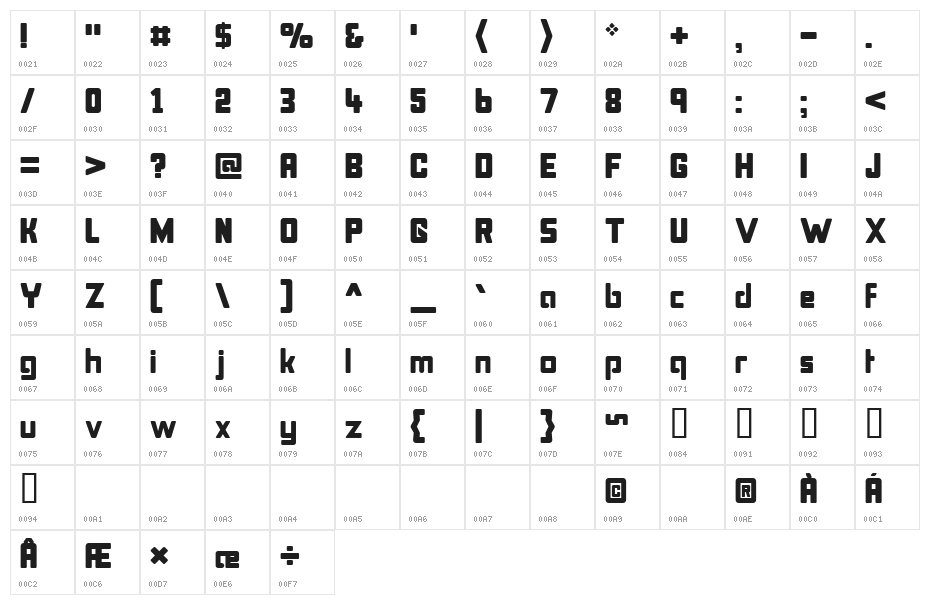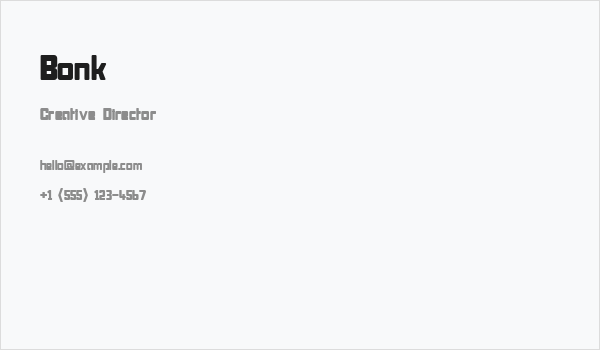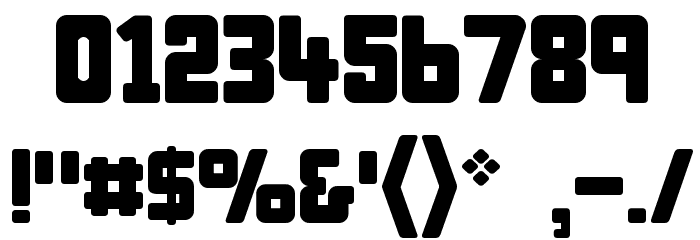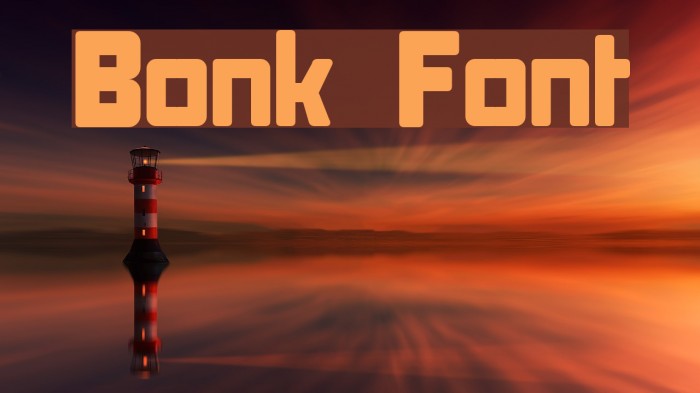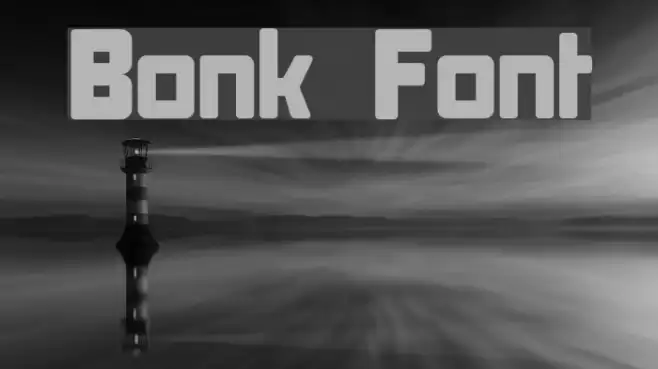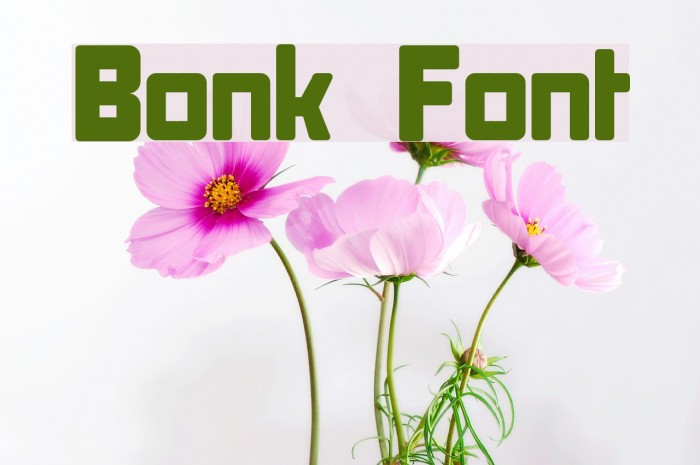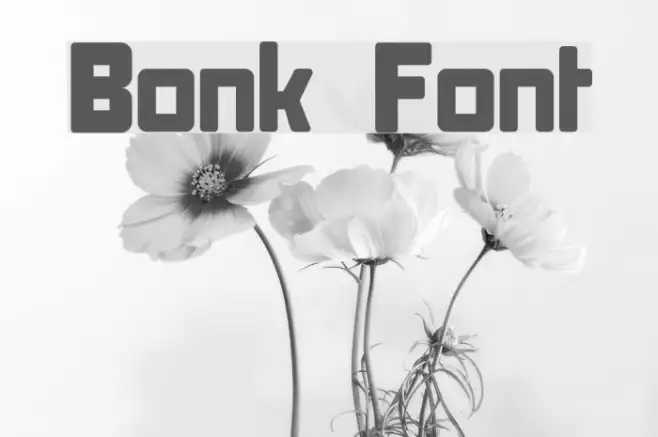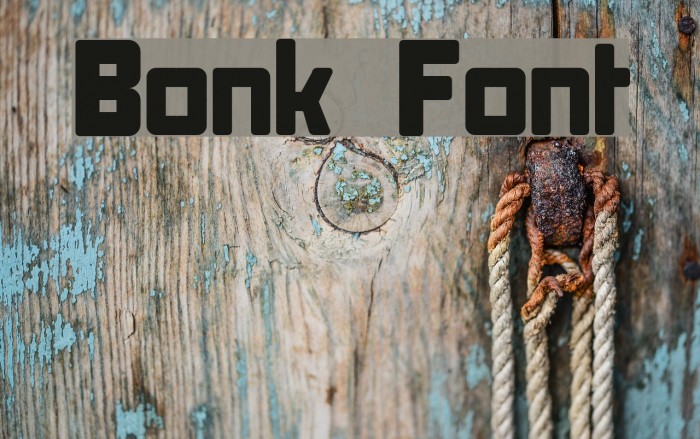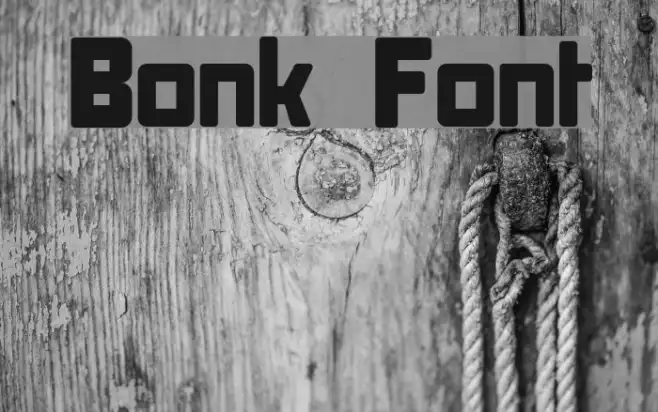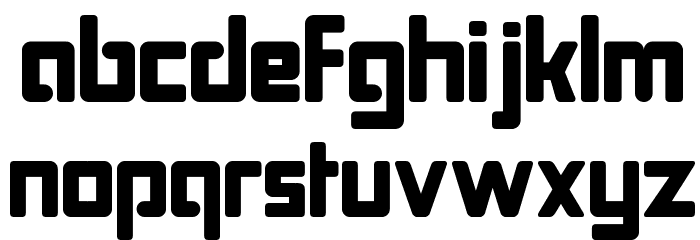
Bonk Font
Bonk Description
This font features a bold and geometric style with rounded edges, giving it a modern and approachable appearance. The uppercase letters are uniform in height, while the lowercase letters maintain a consistent x-height, contributing to a cohesive look. The numerals are distinct and easily readable, with a similar weight to the alphabet characters. Special characters are well-integrated, maintaining the overall design aesthetic. The font's thick strokes and minimal contrast make it highly legible, suitable for various design applications.
| Proposed Projects | Ideal for branding, headlines, posters, and digital media where a modern and bold statement is needed. |